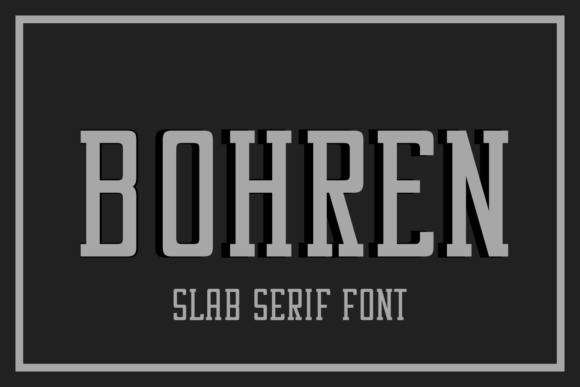
The Power of Bohren Font: A Designer’s New Best Friend
I still remember the design project that led me to discover the amazing Bohren font. I was working on a branding campaign for a new outdoor gear company, and I needed a font that could convey strength, modernity, and a sense of adventure. After hours of searching through font libraries and testing out different options, I stumbled upon Bohren – a striking slab serif font that instantly caught my attention. Its bold and sturdy letterforms seemed to scream confidence and energy, and I knew right then and there that it was the perfect fit for the project.
An Honest Review of Bohren Font
So, what makes Bohren font so special? Let’s dive into the good stuff and some of the quirks I’ve discovered.
What I Love About Bohren Font
- ✨ Confidence booster: Bohren font exudes a sense of strength and modernity, making it perfect for designs that need to make a bold statement.
- ✅ Versatility: This font works beautifully for both digital and print projects, from logos and branding to headings and titles.
- 💡 Legibility: Even at smaller sizes, Bohren font remains clear and easy to read, making it a great choice for body text and captions.
While Bohren font is an excellent addition to any design toolkit, there are a few things to keep in mind:
- 🤔 Overuse: Due to its bold nature, Bohren font can be overwhelming if overused. Balance it with lighter fonts or plenty of white space to avoid visual fatigue.
- ⚠️ Limited elegance: While Bohren font is perfect for bold statements, it may not be the best choice for more elegant or sophisticated designs that require a lighter touch.
One of the best things about Bohren font is its support for OpenType features and glyphs. These features allow you to customize your text and add unique touches to your designs. Some common OpenType features include:
- Ligatures: Replace standard character combinations with stylized glyphs.
- Stylistic alternates: Swap out standard glyphs with alternate versions for a different look.
- Swashes: Add decorative flourishes to your text.
If you love Bohren font but want to explore other options, here are a few similar fonts and their personalities:
- Rockwell: A classic slab serif font with a friendly, approachable vibe. Use for designs that require a softer, more inviting tone.
- Montserrat: A sleek, modern sans-serif font with an urban feel. Use for designs that need a clean, contemporary look.
- Playfair Display: An elegant, luxurious serif font perfect for headlines and titles. Use for designs that require sophistication and glamour.
- Archivo: A bold, geometric sans-serif font with a strong industrial feel. Use for designs that need a rugged, edgy look.
The Story Behind Bohren Font
While the origins of Bohren font are shrouded in mystery, it’s said that the font was inspired by the industrial landscapes of modern cities. The designer, fueled by late-night coffee and a passion for typography, aimed to create a font that embodied the strength and confidence of the urban jungle.
Q: Is Bohren font suitable for digital use?
A: Absolutely! Bohren font works beautifully for digital projects, from website headers to social media graphics.